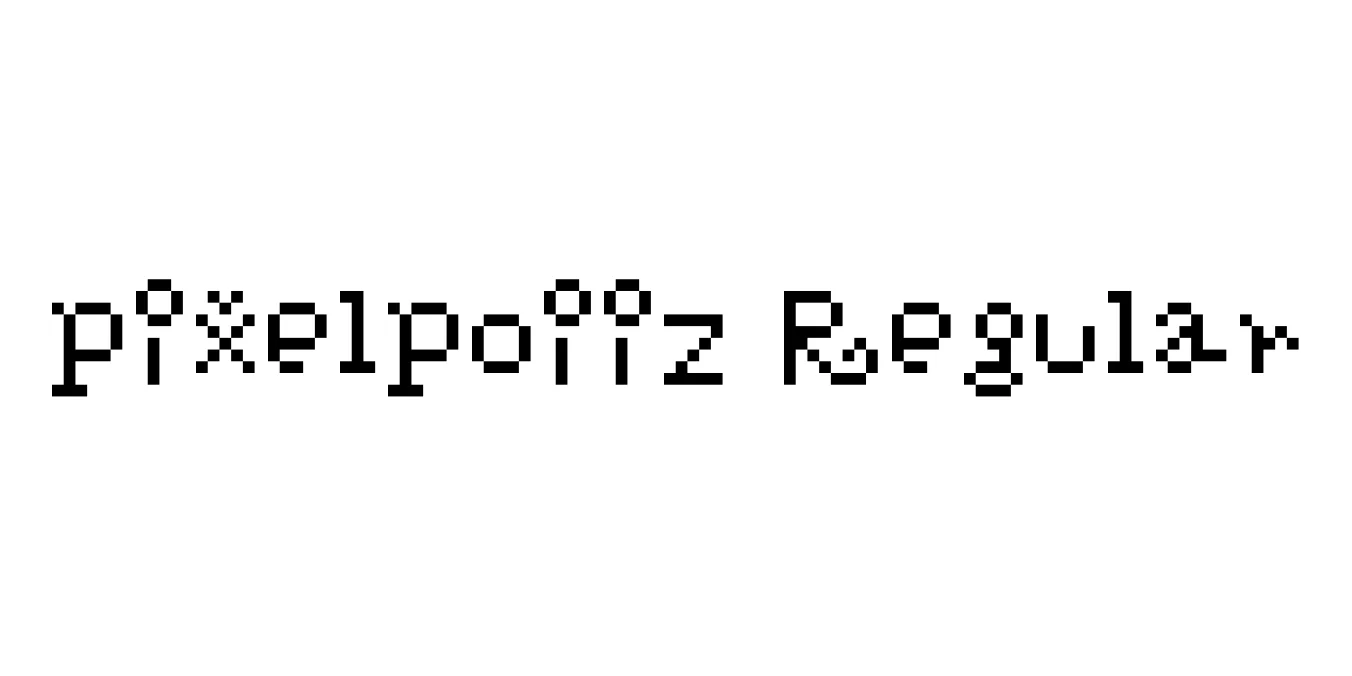
pixelpoiiz Regular
Designed by poiiz
| Category | Pixel / Bitmap |
Pixelpoiiz Regular is a distinctively blocky and nostalgic typeface designed to capture the essence of early computing and classic video game aesthetics. Developed by poiiz, this font utilizes a strict grid-based structure to ensure clarity even at small sizes, making it a favorite for digital artists and indie game developers looking to evoke a sense of 8-bit retro charm.
The font's geometry is precisely balanced, offering a clean yet stylistic approach to the pixel art genre. While primarily intended for digital interfaces, Pixelpoiiz Regular has gained popularity in modern graphic design for streetwear branding, tech-oriented posters, and social media graphics that aim for a lo-fi or cyber-industrial look.
pixelpoiiz Regular Best Uses
Perfect for UI, dialogue boxes, and HUD elements in 2D platformers or RPGs.
Ideal for tech blogs, portfolio sites, or retro-themed landing pages.
Great for posters, album covers, and apparel design with a vintage tech vibe.